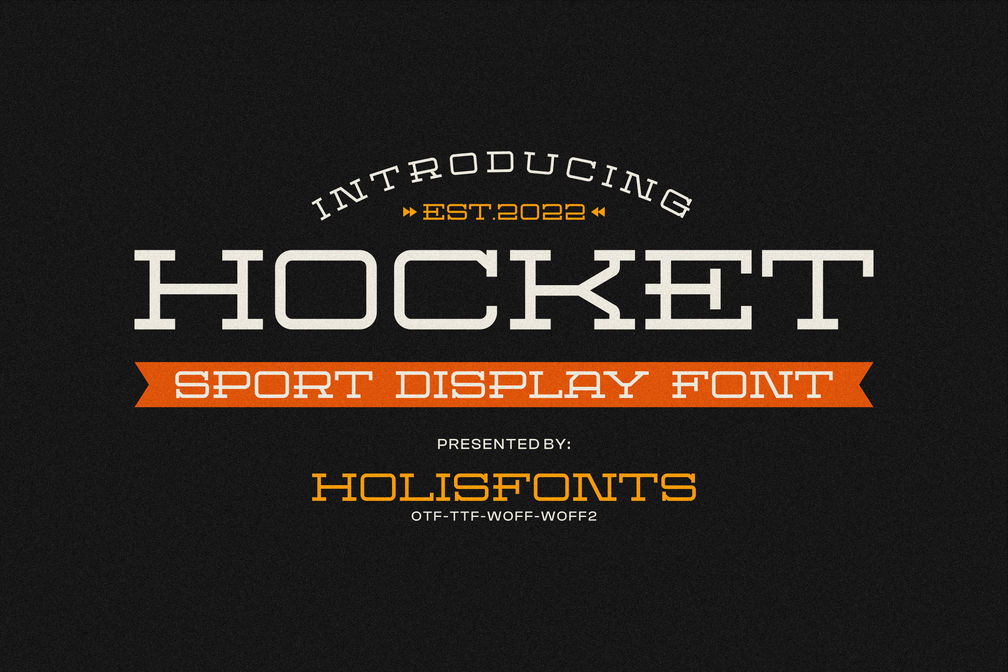
Hocket Sport
Hocket is a slab serif-inspired font for sports-related designs.
Feature:
• All Caps
• Numeral
• Punctuation and symbol
• Multilingual Support